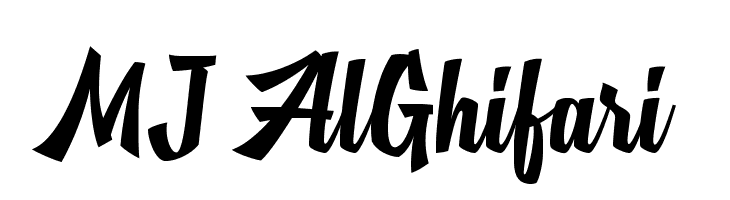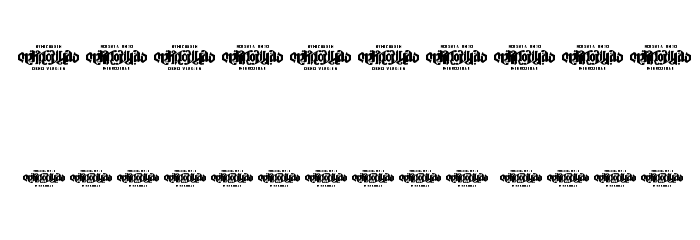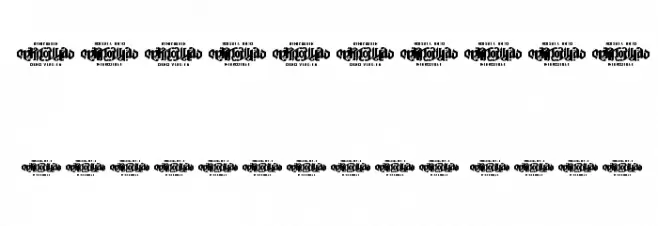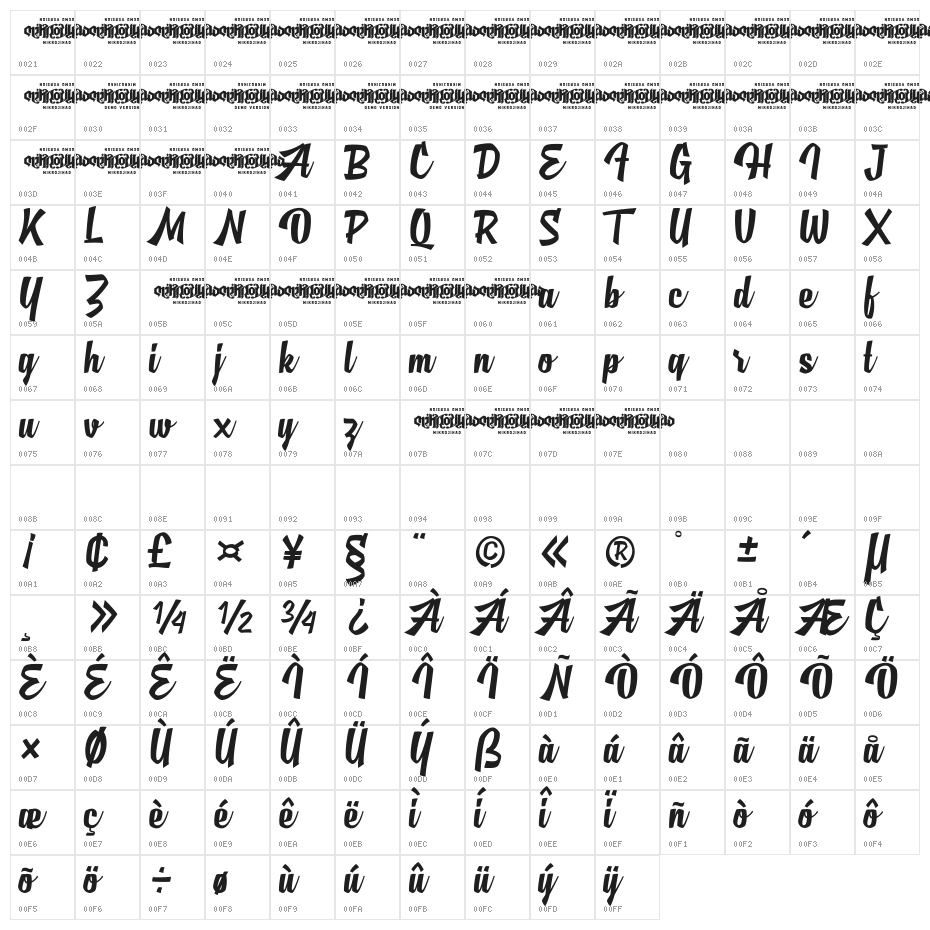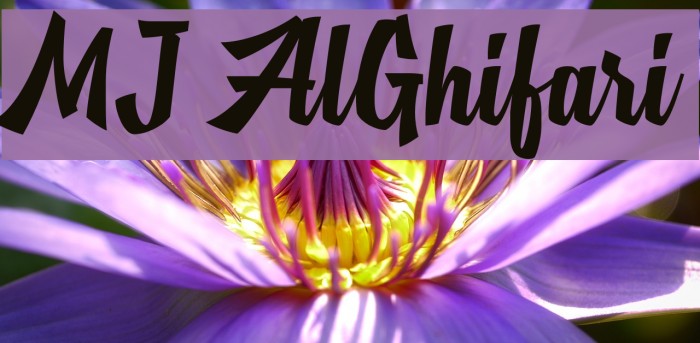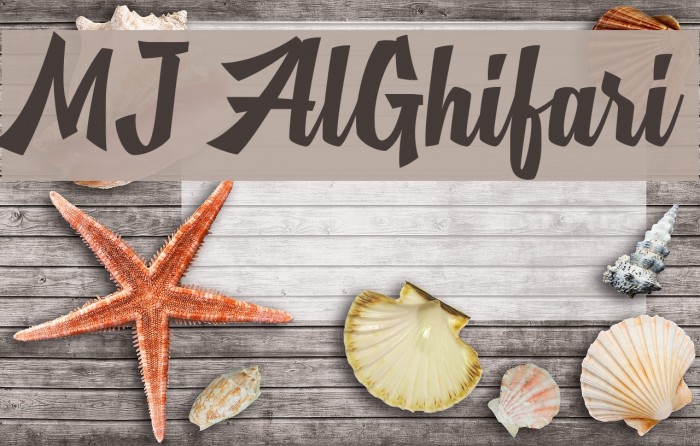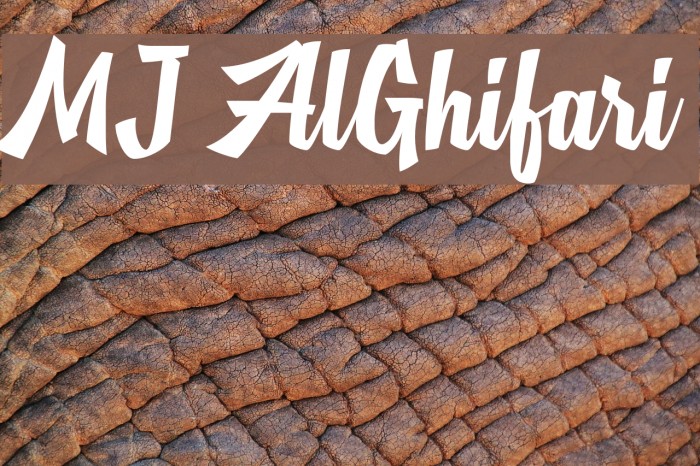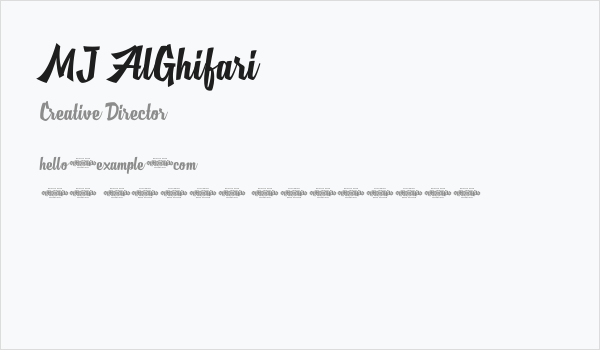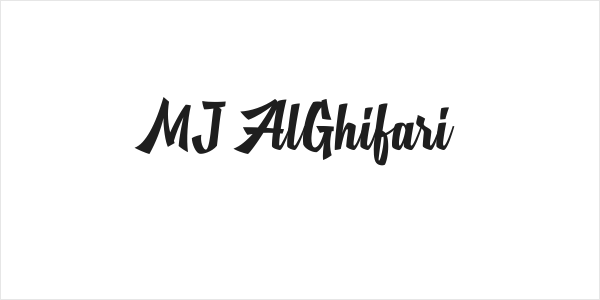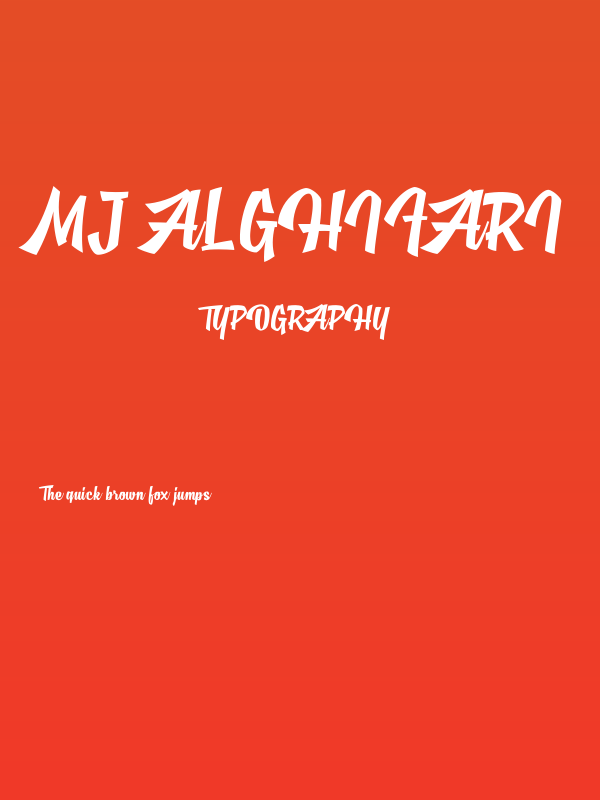
MJ AlGhifari Font
MJ AlGhifari Description
This font features a bold and dynamic script style with a strong presence. The uppercase letters exhibit a sharp, angular design, while the lowercase letters maintain a fluid, cursive flow. The strokes are thick and consistent, giving the font a robust appearance. The special characters are integrated seamlessly, maintaining the overall aesthetic. This font is ideal for projects that require a bold and expressive touch, such as branding, headlines, and artistic designs.
| Use Case | Headlines, Logos, Artistic designs |
| Proposed Projects | Ideal for branding, headlines, posters, and artistic design projects. |